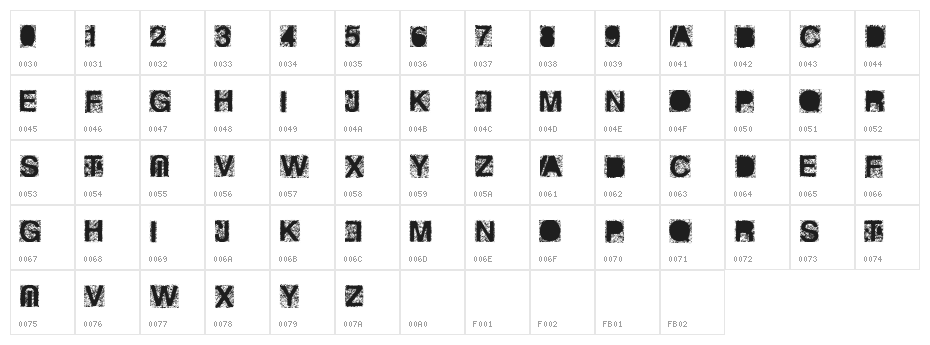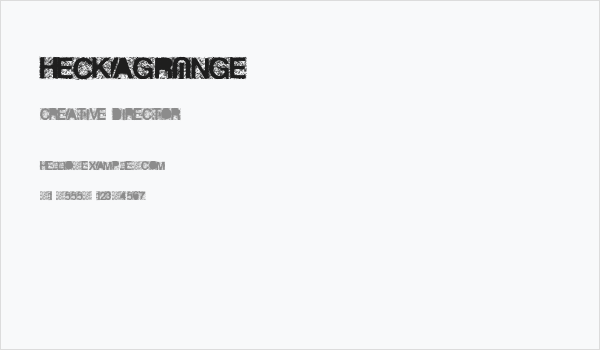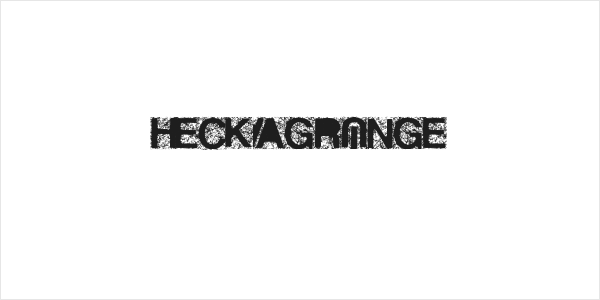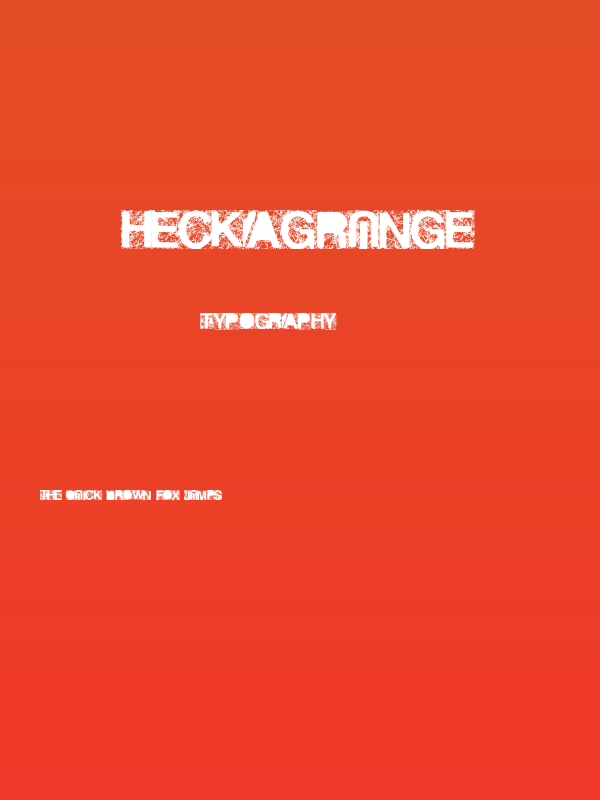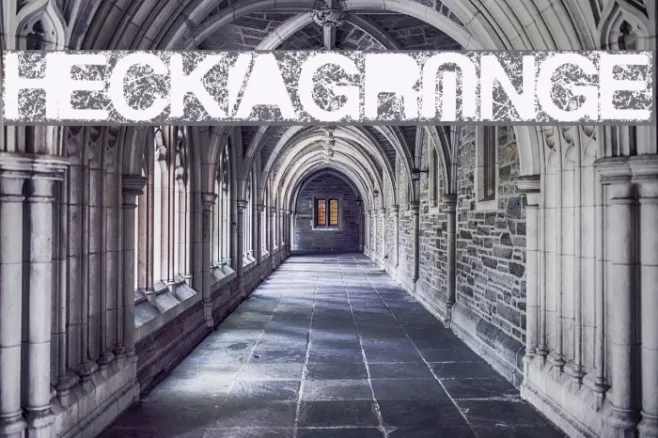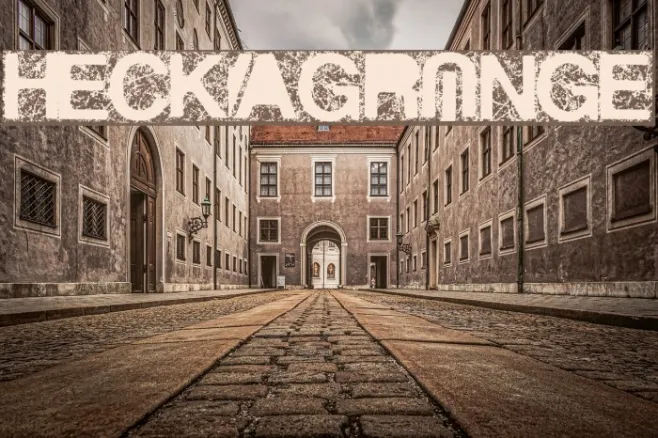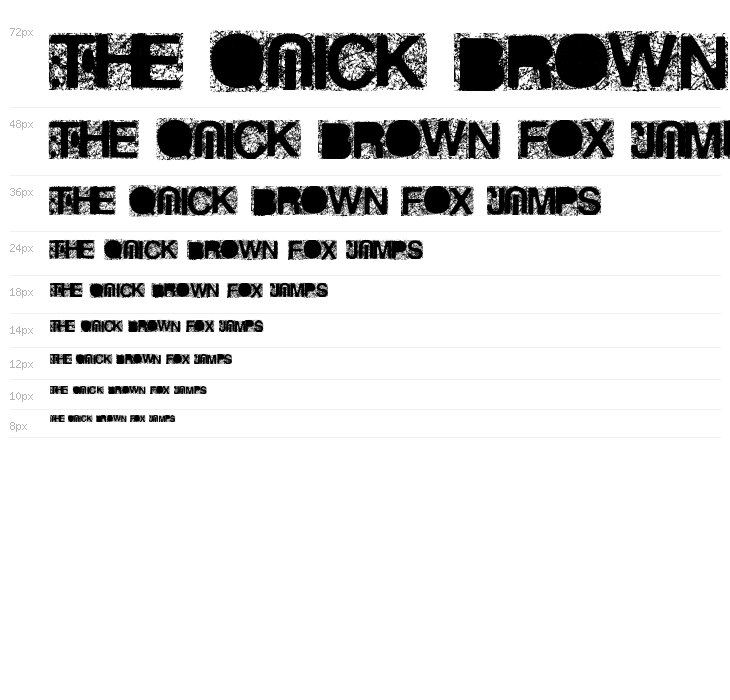
HeckaGrunge Font
HeckaGrunge Description
This font features a bold, distressed style with a grunge texture that gives it a rugged and edgy appearance. The characters are heavily textured, creating a worn and weathered look that is both striking and unique. The uppercase and lowercase letters maintain a consistent style, with each character exhibiting a rough, uneven surface that adds to the overall aesthetic. The numerals and special characters follow the same design, ensuring a cohesive appearance across all elements. This font is ideal for projects that require a bold statement or a vintage, rebellious feel.
| Overall Style | Grunge, Vintage |
| Proposed Projects | Ideal for music album covers, posters, urban-themed designs, and apparel branding. |